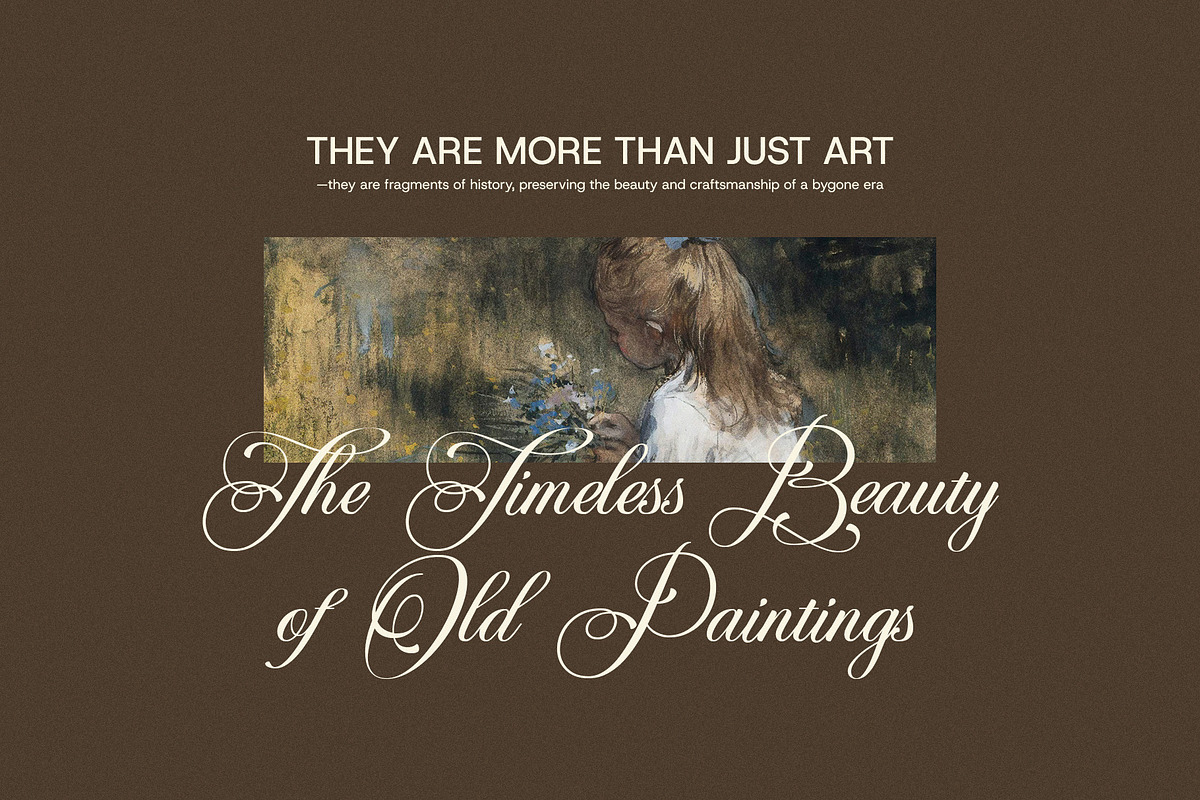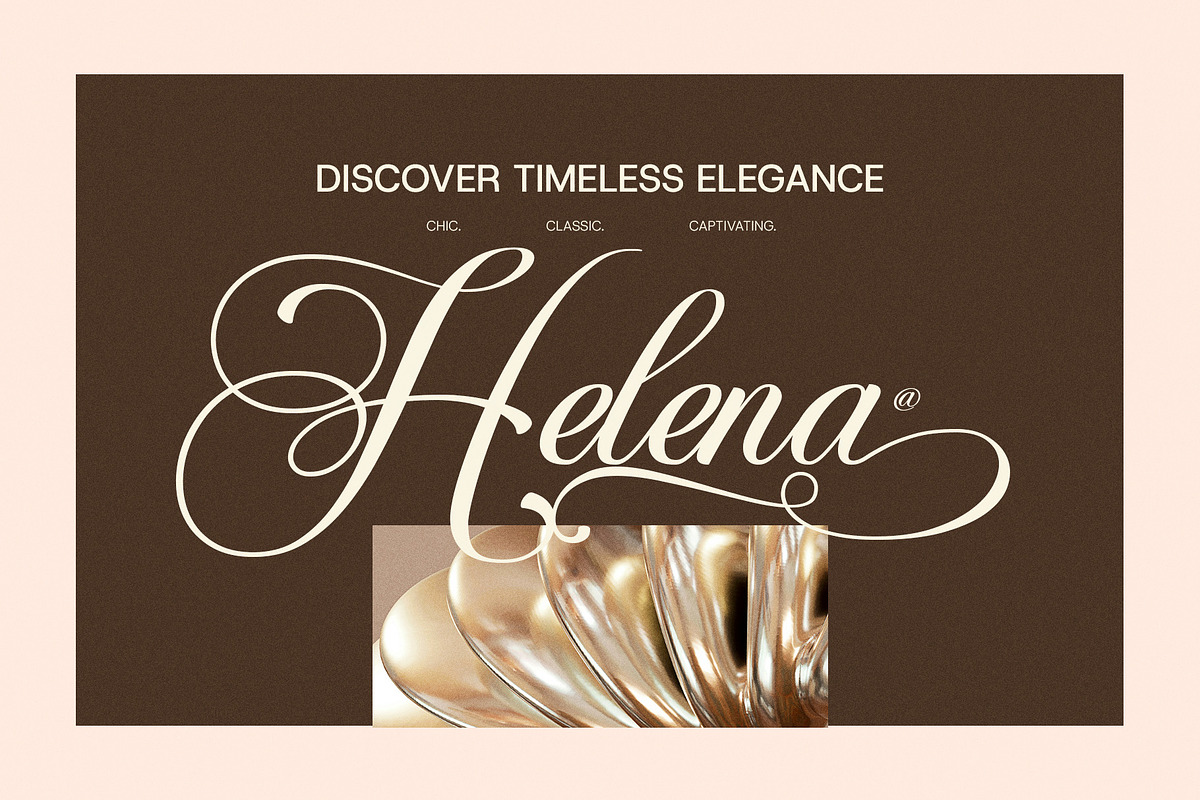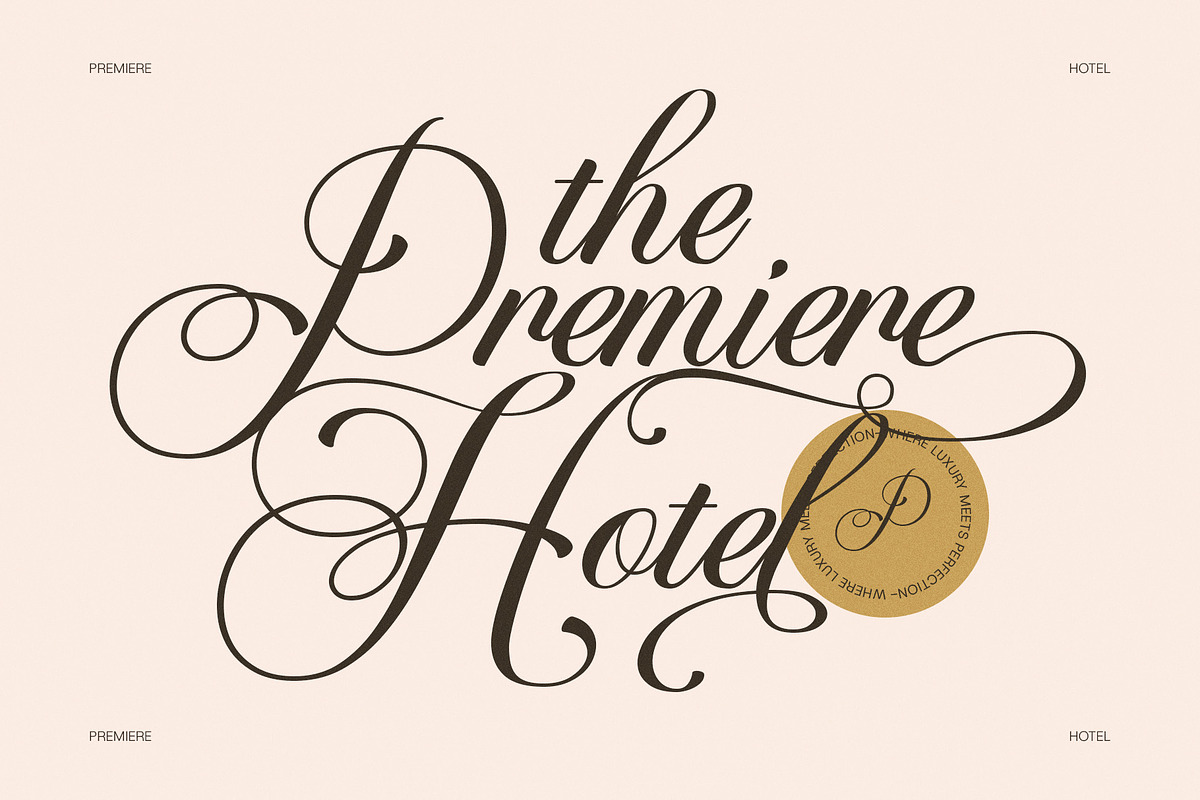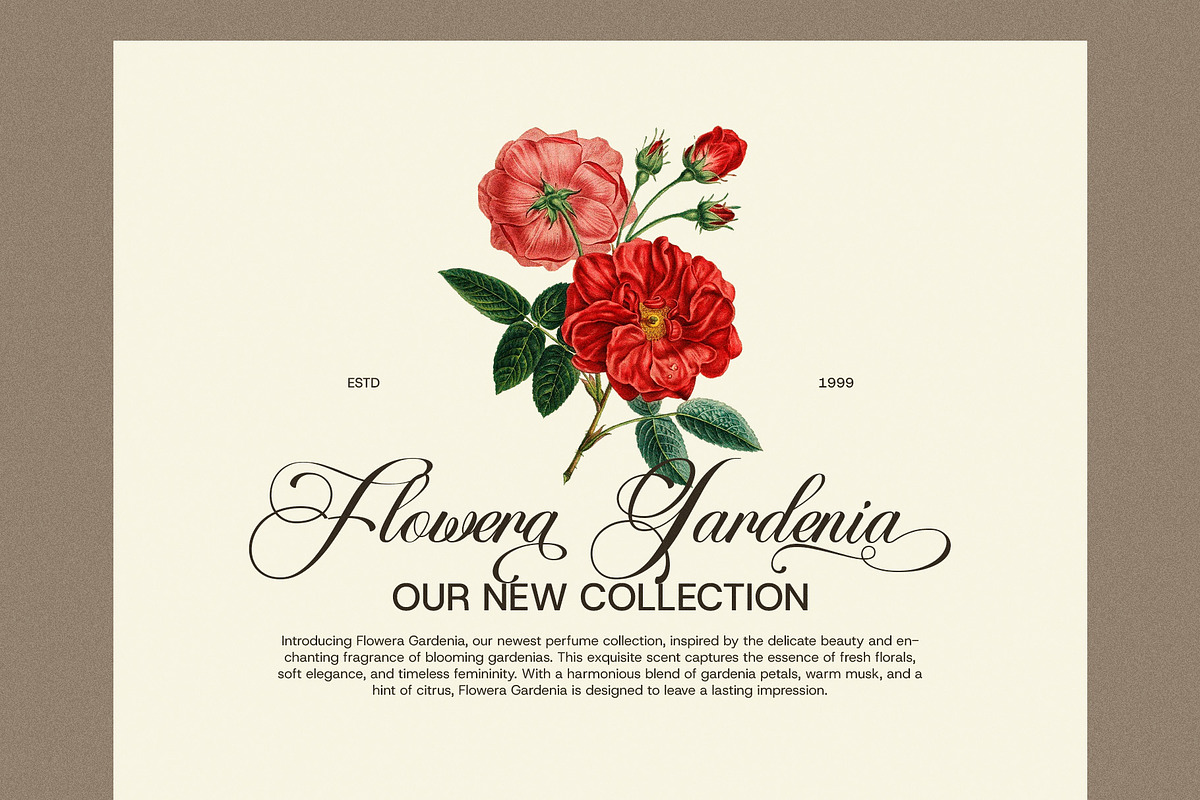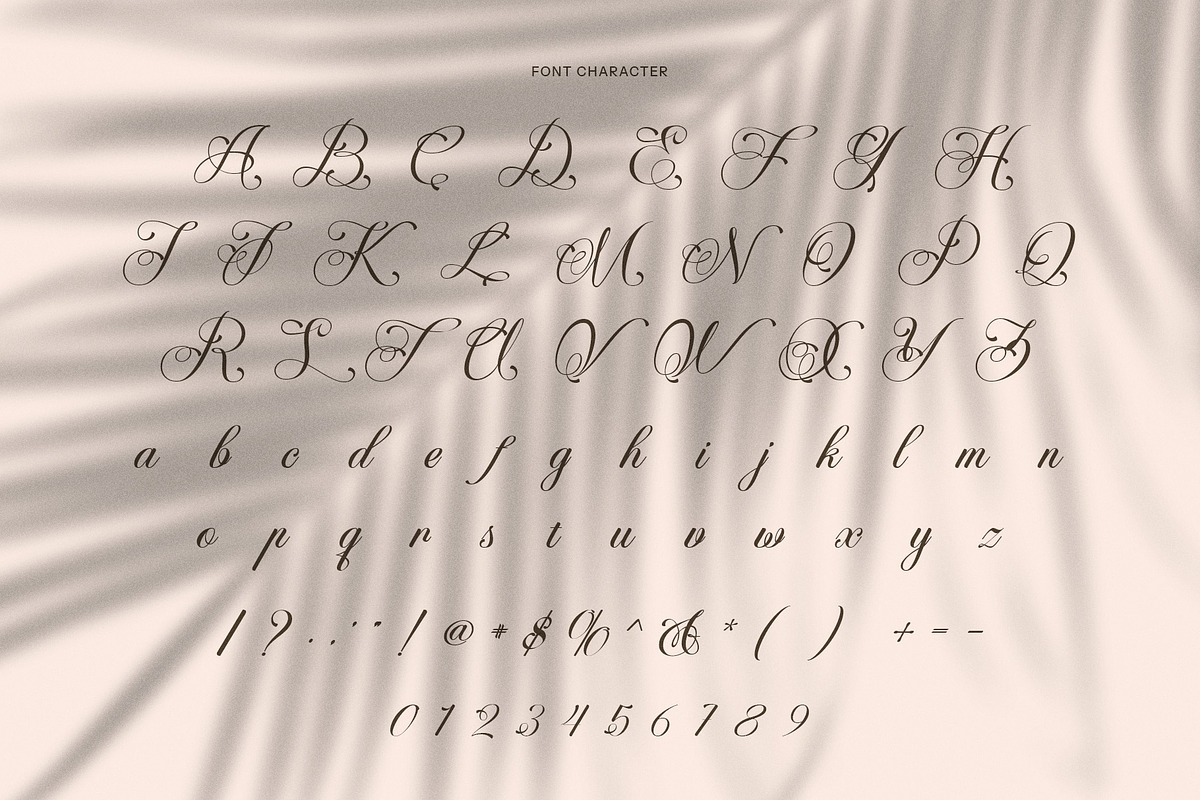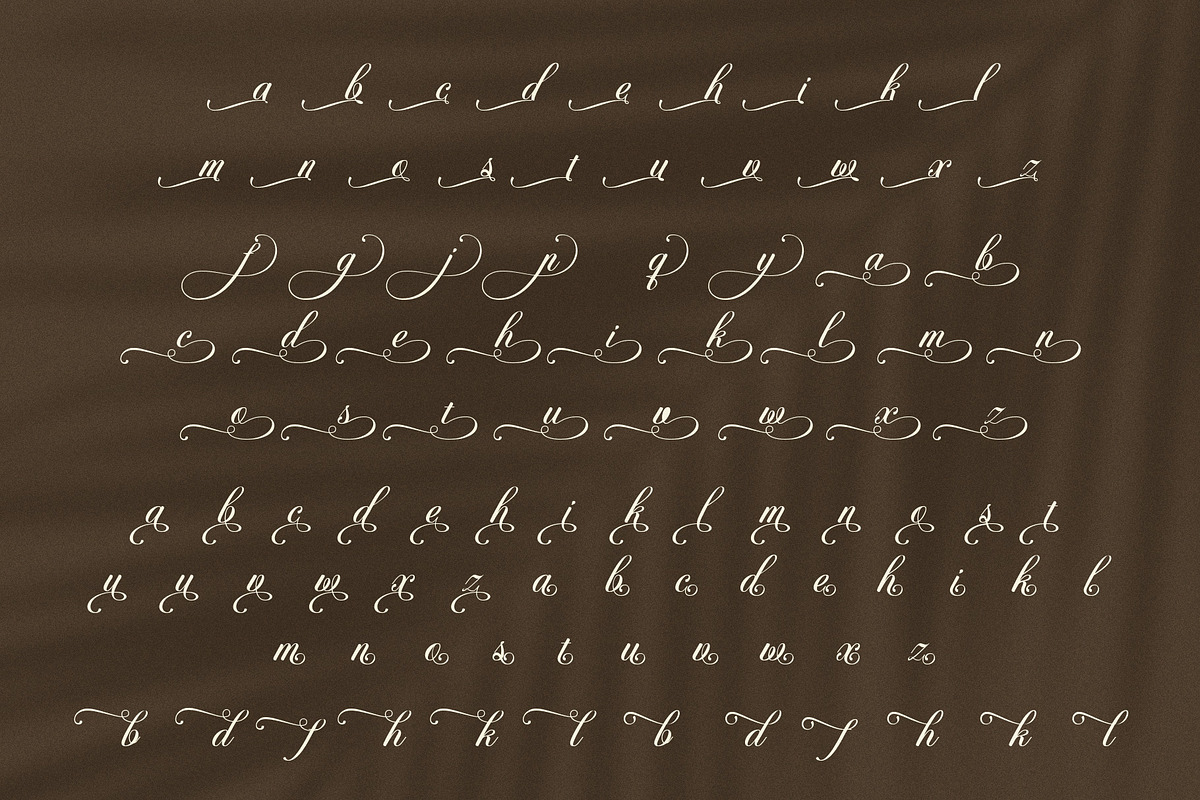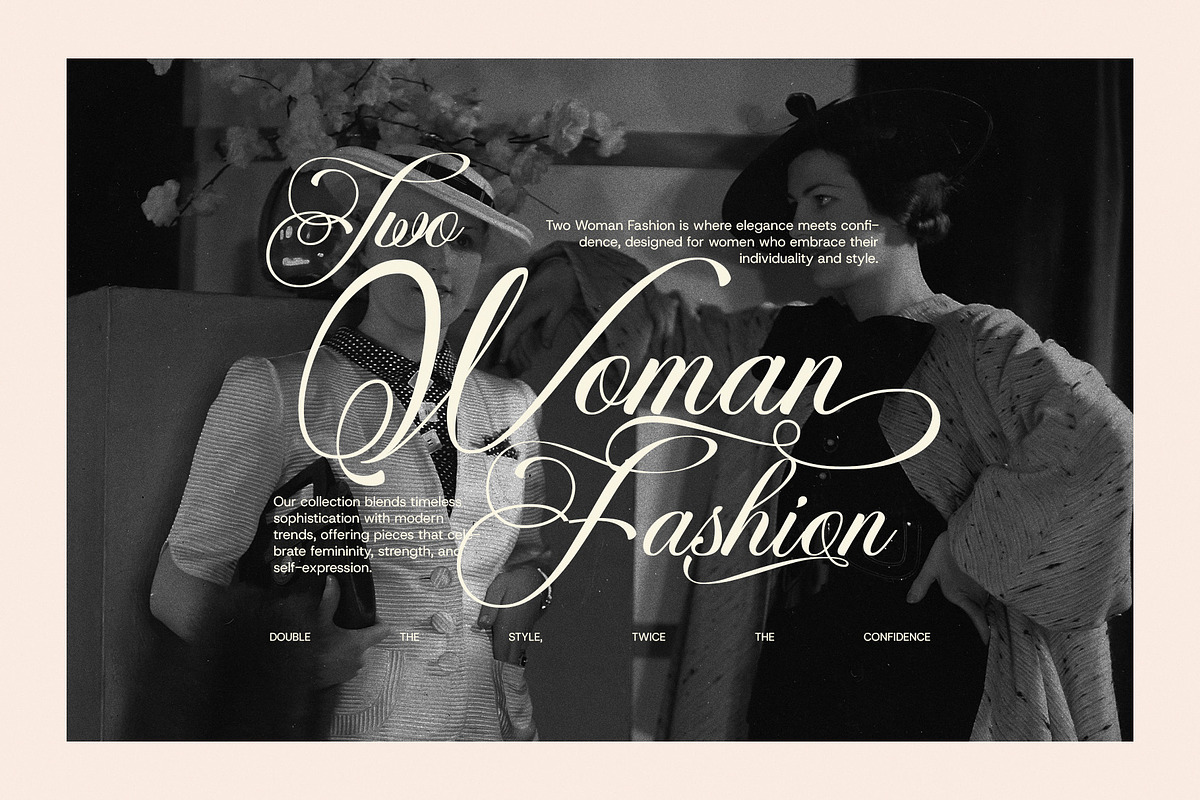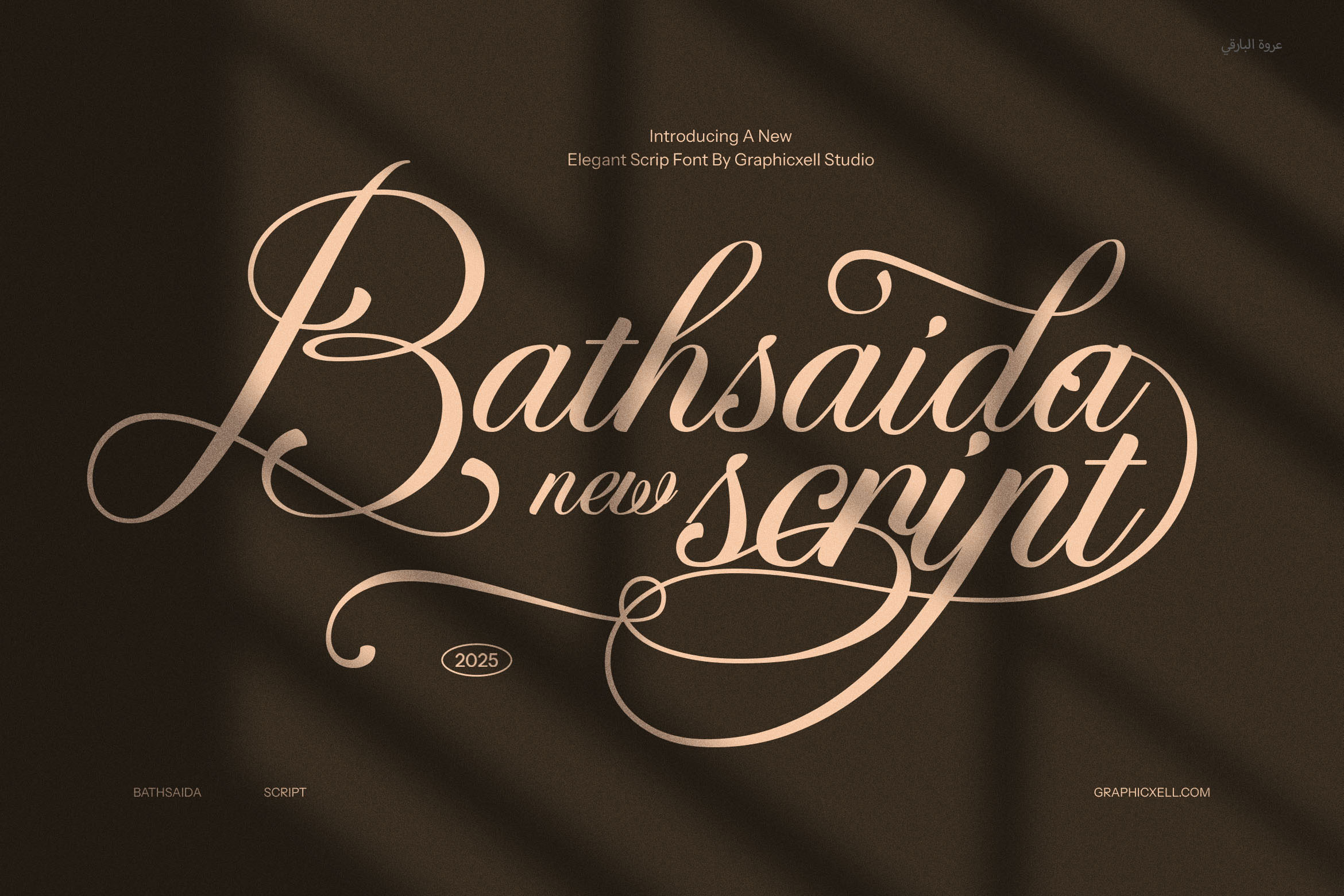
Bathsaida Calligraphy Script Font
Bathsaida Calligraphy Script Font is a sophisticated and graceful typeface that exudes timeless elegance. Designed with flowing strokes and refined details, this script font brings a luxurious and artistic touch to any project. With its smooth curves and stylish flourishes, Bathsaida is perfect for adding a handcrafted, high-end feel to your designs.
Featuring a rich collection of alternates and swashes, this font allows for endless creativity, making it ideal for branding, logos, and high-end packaging. Whether you’re designing a wedding invitation, crafting a signature-style logo, or creating stylish social media content, Bathsaida enhances your work with a natural yet polished aesthetic. Its carefully crafted letterforms ensure readability while maintaining the charm of authentic calligraphy.
Bathsaida Calligraphy Script is the perfect choice for wedding stationery, album covers, luxury product packaging, editorial layouts, business cards, and elegant website headers. The combination of classic calligraphic strokes and modern design sensibilities makes it versatile for both digital and print media.
Designed for designers, artists, and creatives looking for a font that embodies sophistication, romance, and artistic expression, Bathsaida Calligraphy Script is a must-have in your font collection. Its fluidity, ornate details, and seamless letter connections give every word a personal and stylish touch.
Embrace the beauty of calligraphy with Bathsaida – where elegance meets creativity, and every design tells a story.